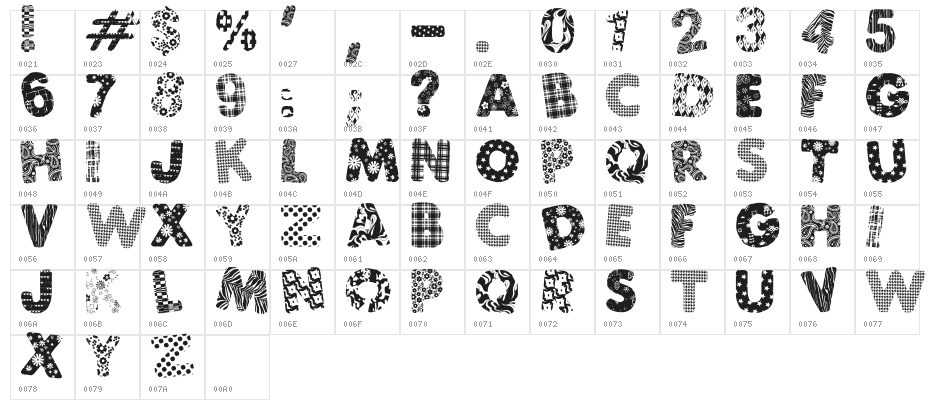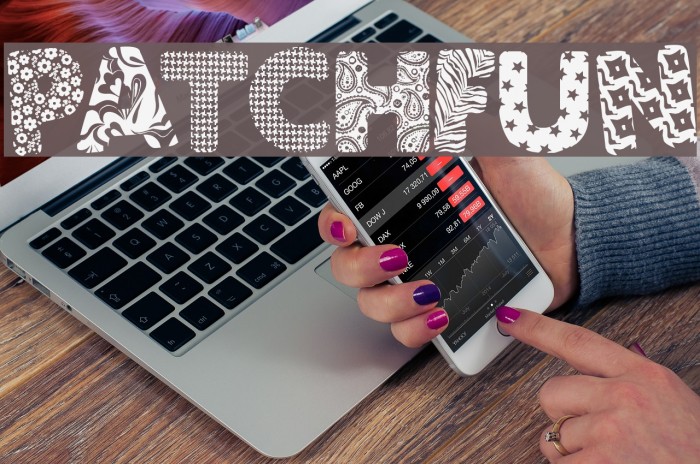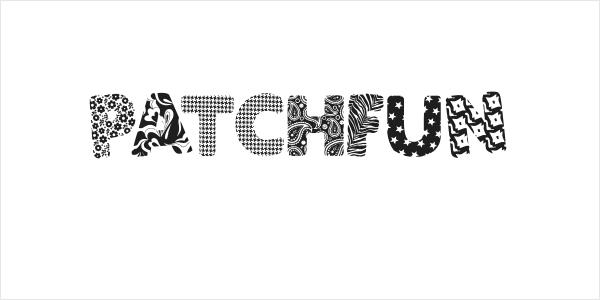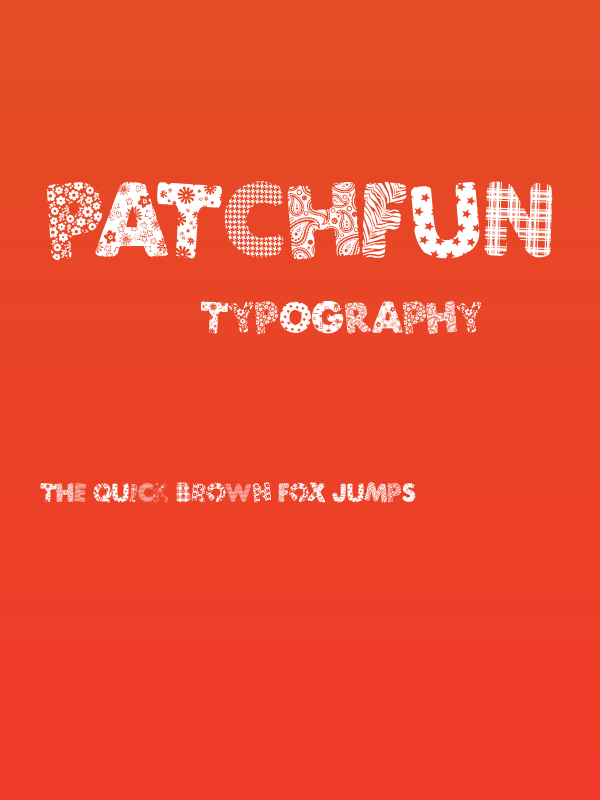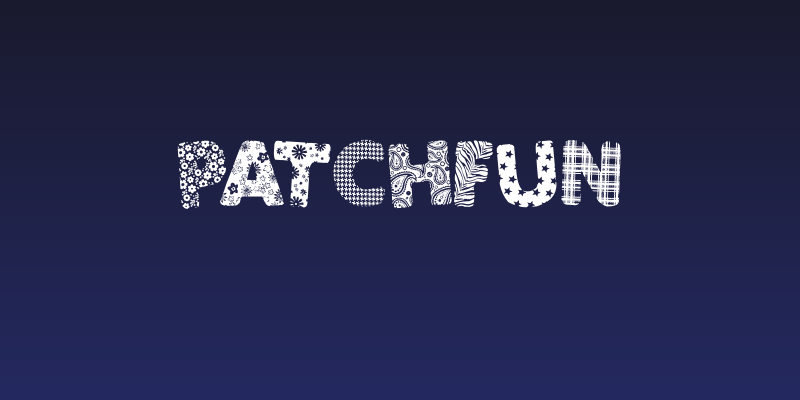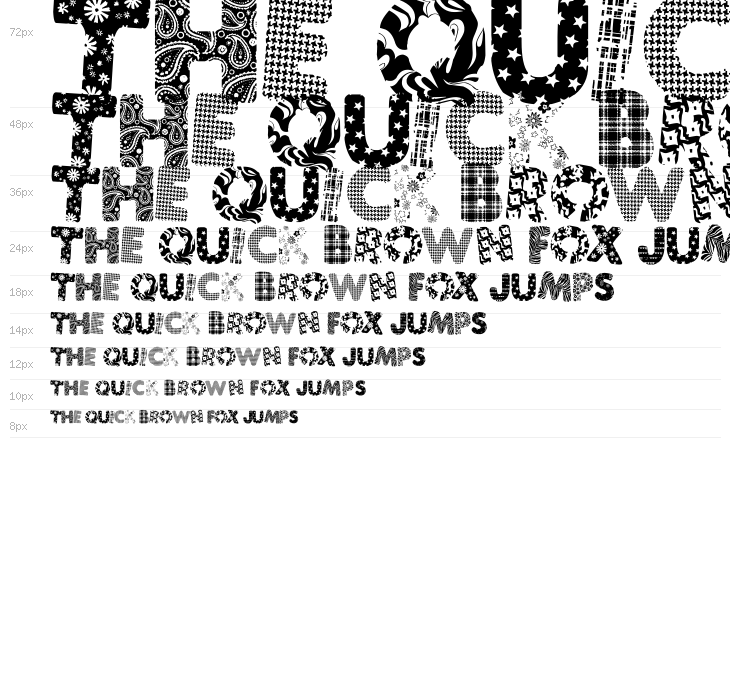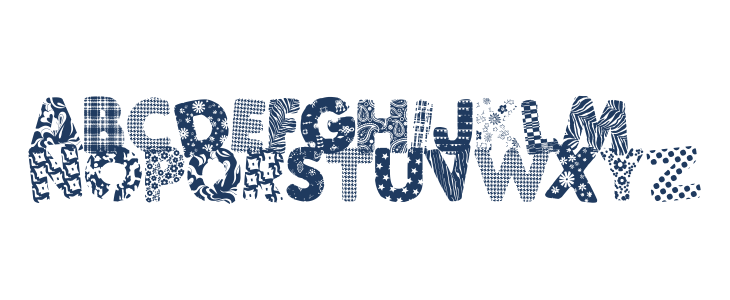
PatchFun Font
PatchFun Description
This font is a vibrant and eclectic display typeface characterized by its patchwork design, where each character is filled with a unique pattern or texture. The letters are bold and eye-catching, making them ideal for creative and playful projects. The diverse patterns range from floral and geometric to abstract and plaid, offering a dynamic visual experience. This font is perfect for projects that require a touch of whimsy and creativity, such as children's books, playful branding, or artistic posters. Its decorative nature makes it stand out, ensuring that any text set in this font will capture attention.
| Proposed Projects | Ideal for children's books, playful branding, artistic posters, and creative invitations. |